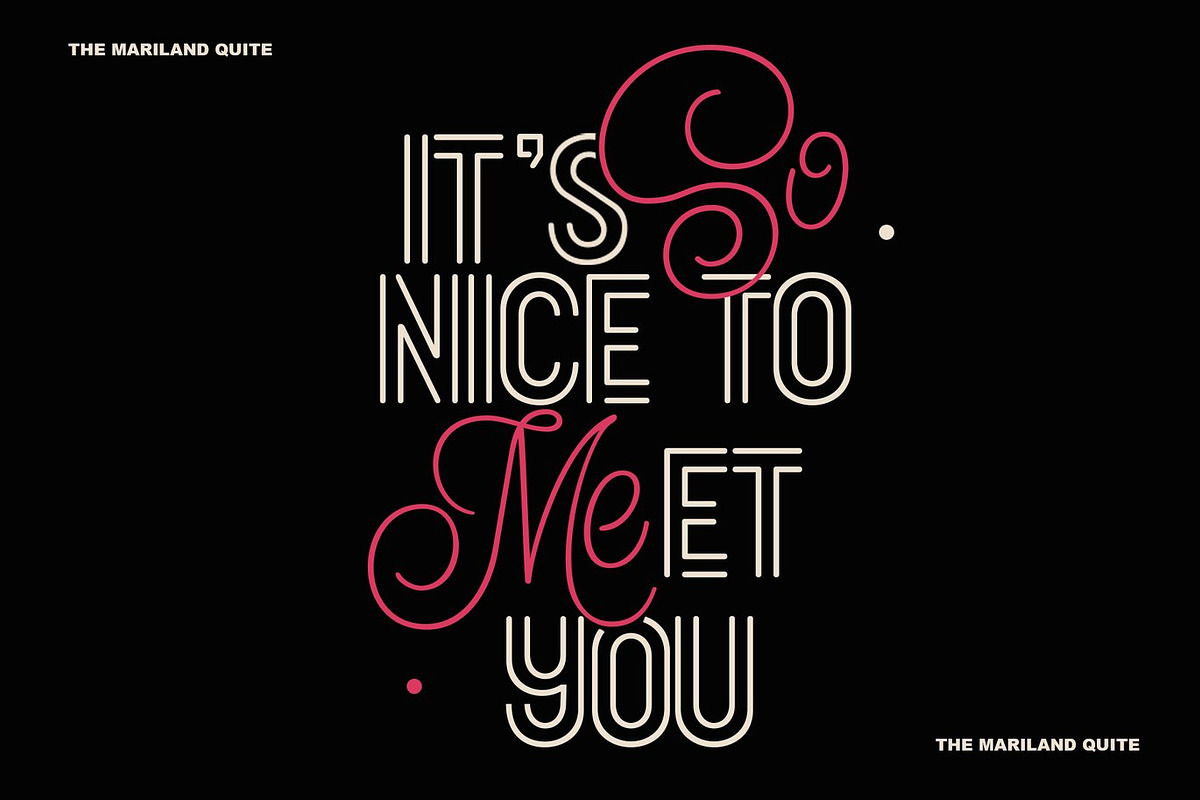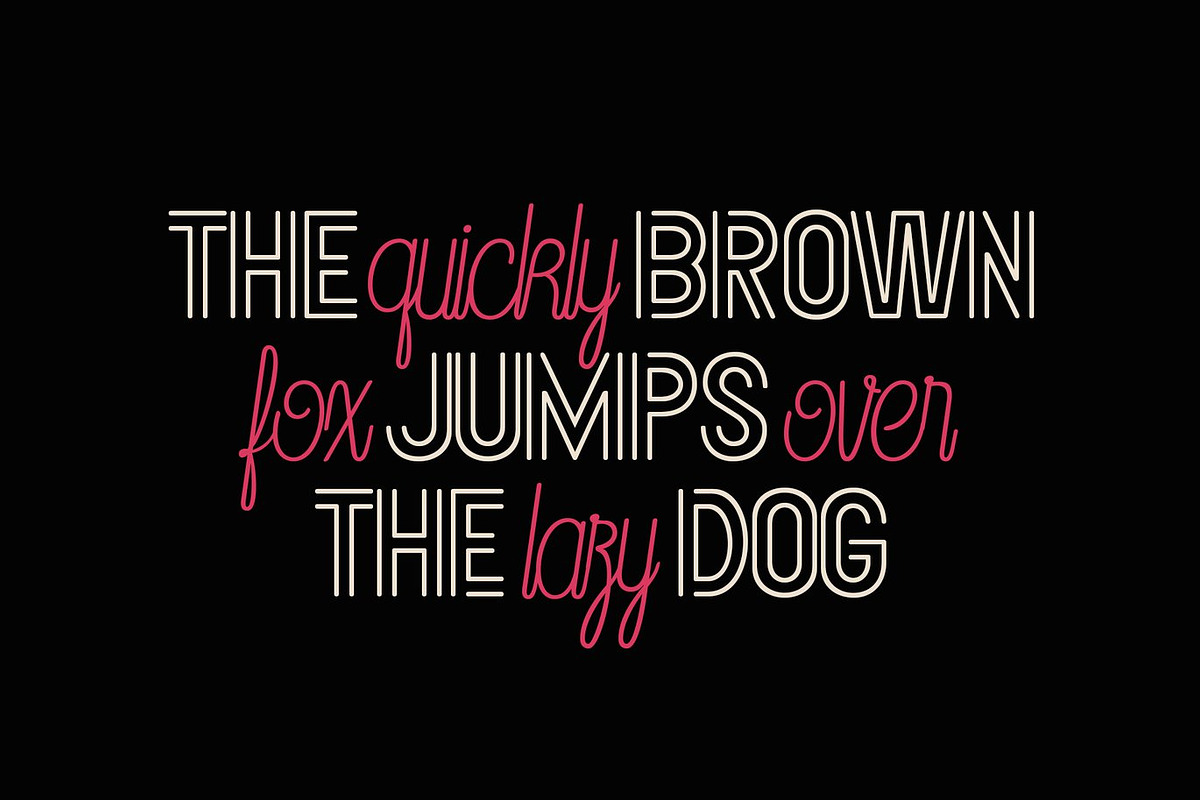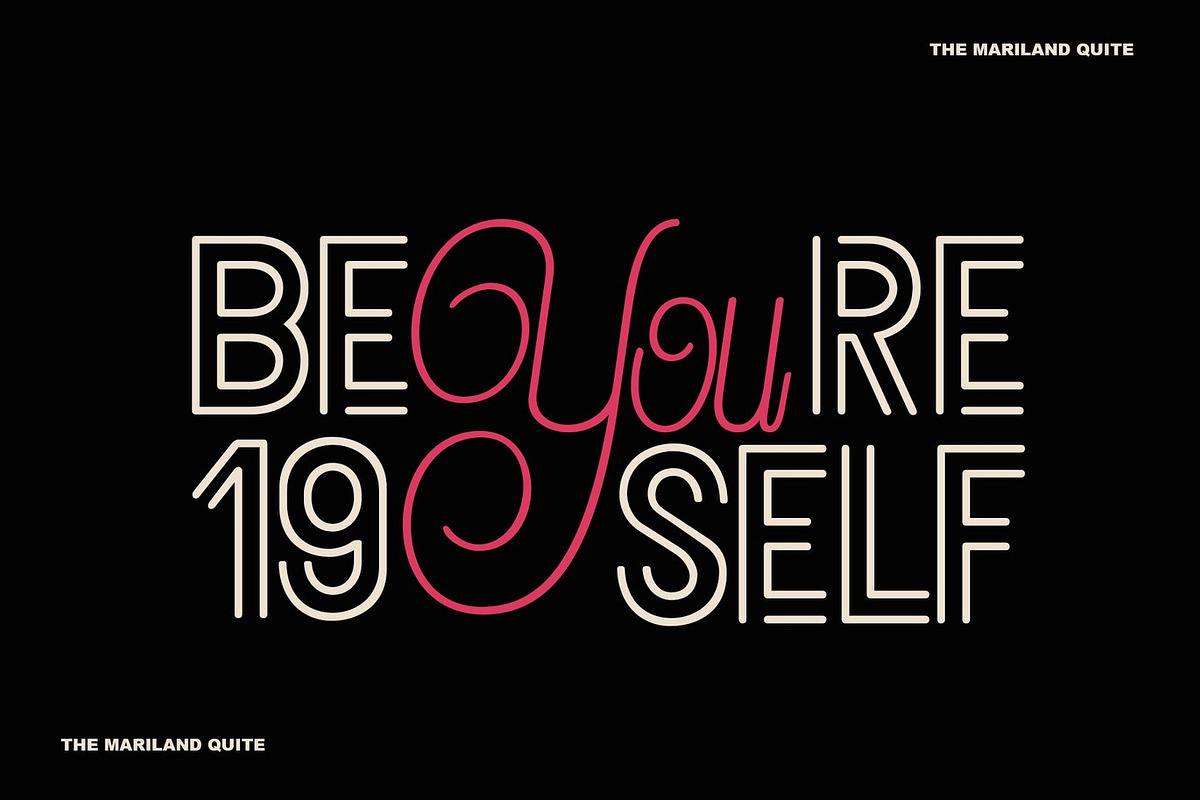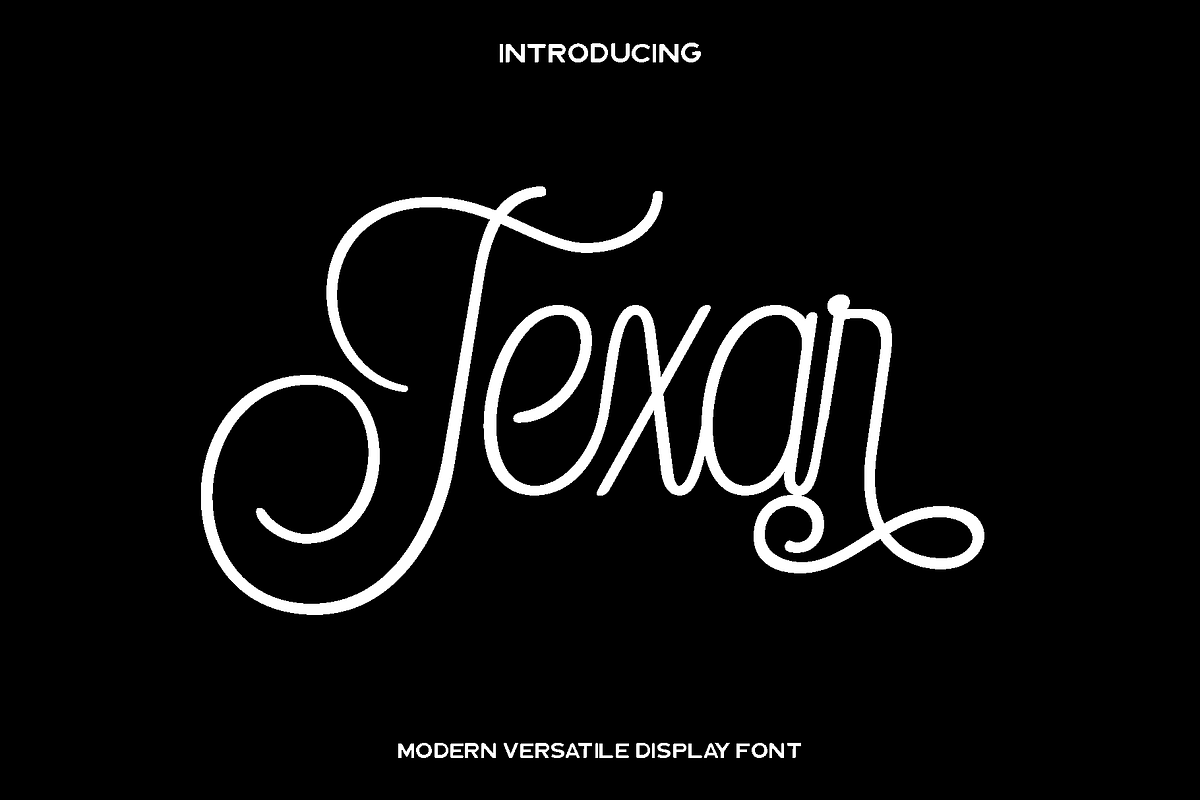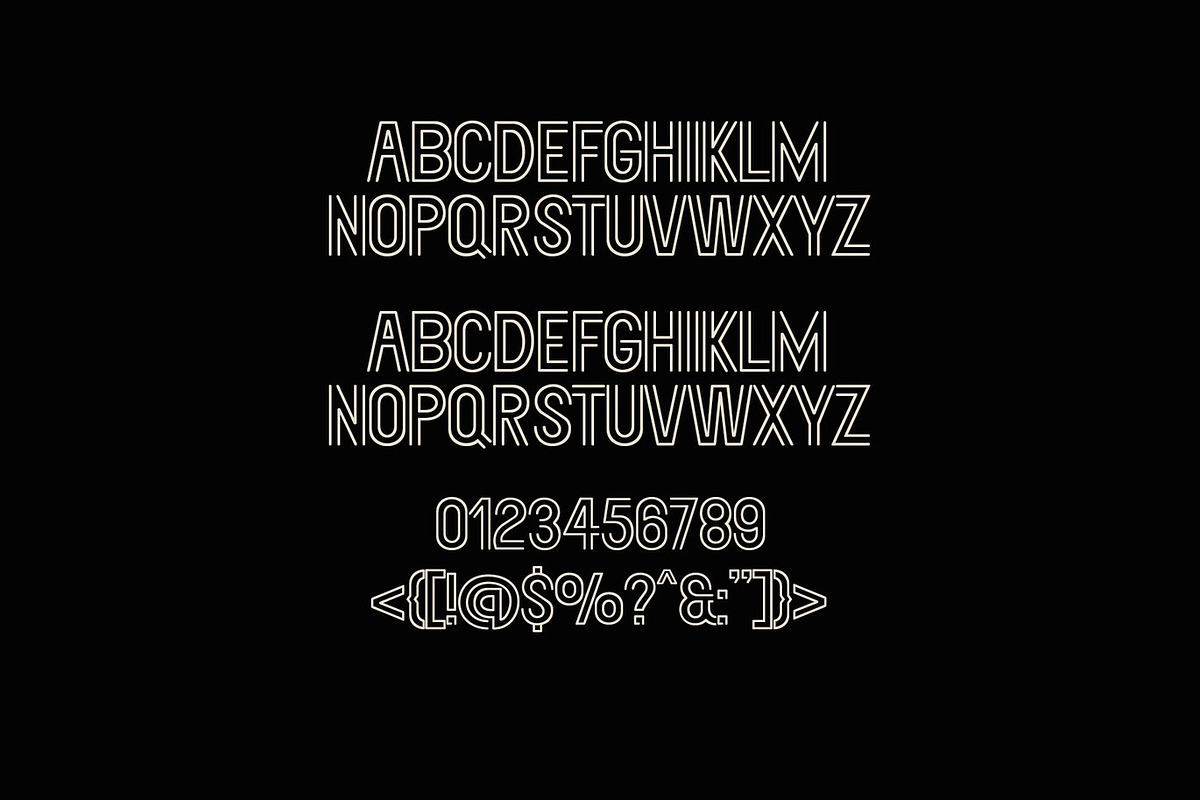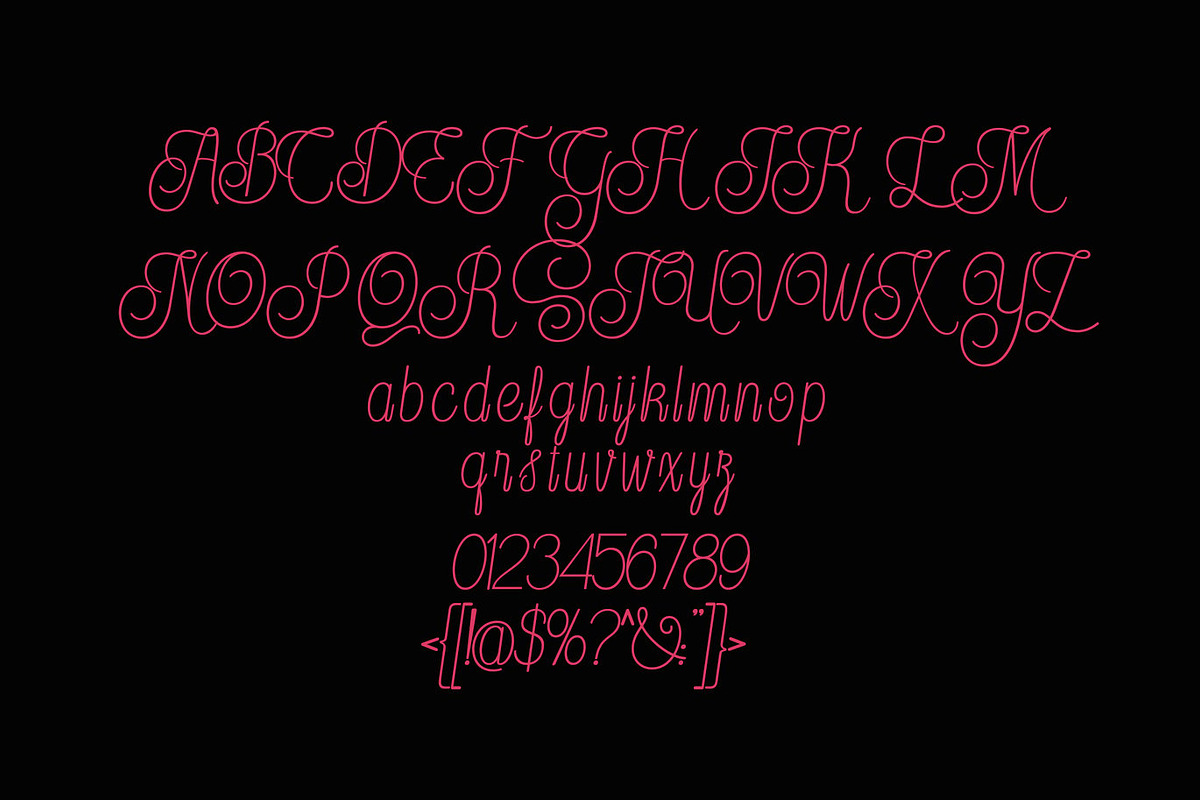
Texar - Modern Script
Texar is a modern and expressive font designed to bring clarity, character, and versatility to a wide range of creative projects. Built with a strong yet approachable structure, Texar balances contemporary style with practical usability. Its clean forms and confident letter shapes give your designs a professional feel while still allowing space for creativity and expression.
This font shines across both digital and print applications. Texar is well suited for books, magazines, branding, logos, photography layouts, quotes, blog headers, posters, and advertising materials. Whether you are creating bold headlines or refined typographic compositions, Texar delivers readability with visual impact. The inclusion of a stencil style adds an extra layer of personality, making it ideal for editorial design, creative campaigns, and modern branding systems.
Texar feels functional, modern, and adaptable. With two distinct font styles, designers can easily create contrast and hierarchy within the same project. Its multilingual support and complete character set make it a reliable choice for professional use, while its stylistic flexibility ensures your designs remain engaging and memorable.
Texar Font Features:
• Two font styles included: Regular and Stencil
• Uppercase and lowercase
• Numerals and functional characters
• Multilingual support
• Stylistic features
Texar is a dependable and stylish typeface created for designers who need flexibility, consistency, and modern appeal in one complete font family.